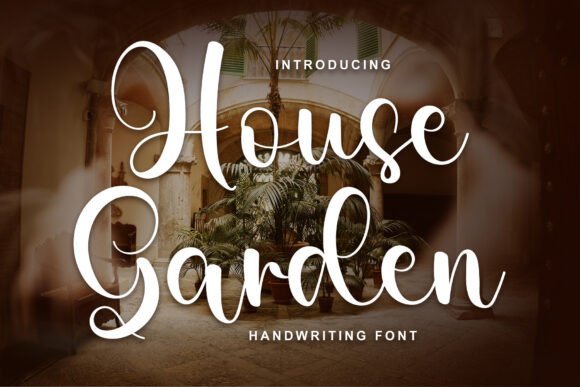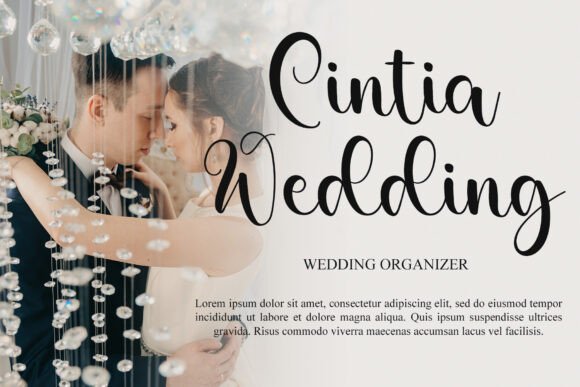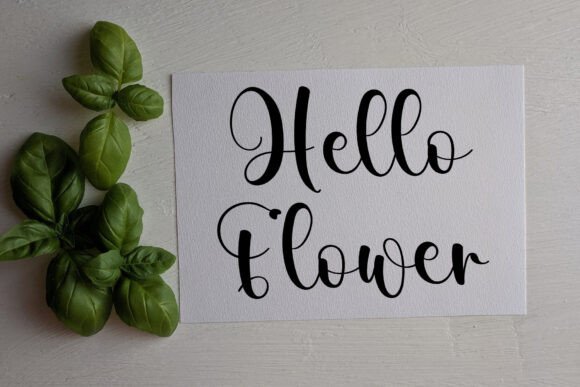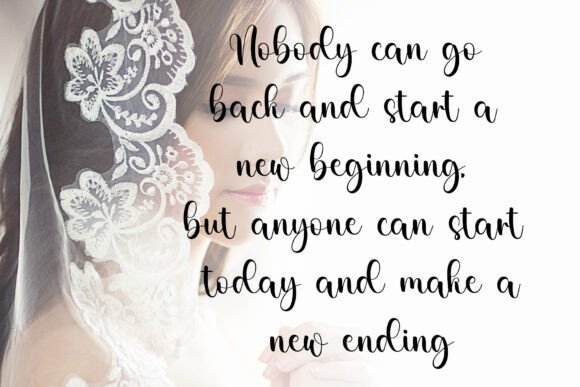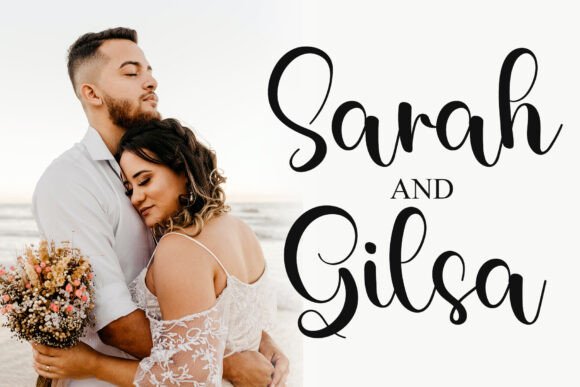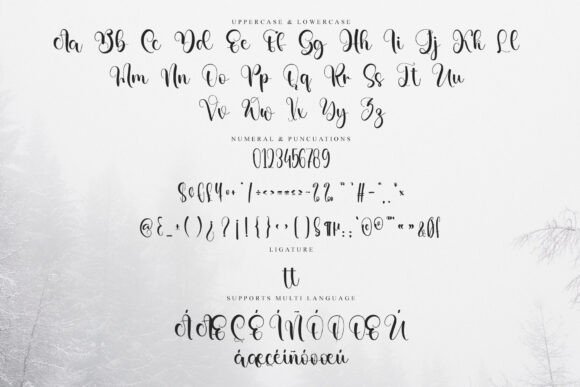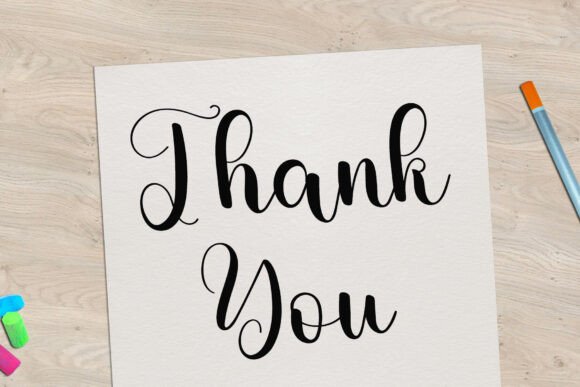
Discover the Timeless Elegance of House Garden Font
Have you ever sat down with a pen and paper, feeling the weight of your ideas floating around in your mind, waiting to be brought to life? That’s exactly where creativity happens – in those moments of quiet contemplation, where the world slows down and our imagination takes over. It’s in these moments that we find inspiration, and for designers, it’s the perfect time to explore new ways to express ourselves.
One such way to breathe life into your designs is with the House Garden Font, a stylish handwritten font that exudes a contemporary atmosphere and impeccable form. Inspired by timeless classic calligraphy, this font is designed to add a touch of sophistication to your projects. Whether you’re working on a branding project, a wedding invitation, or a social media campaign, the House Garden Font is sure to elevate your work and leave a lasting impression.
For designers, the House Garden Font is a valuable asset that can help you create unique and memorable designs. Its balanced and varied strokes make it perfect for a wide range of applications, from headers and titles to body text and quotes. With the House Garden Font, you can add a touch of elegance and sophistication to your work, setting yourself apart from the rest and making your designs truly unforgettable.
Key Features of House Garden Font
- Font Family: House Garden Font offers a unique and elegant script font family, ideal for various design applications.
- Character Count: The font family consists of approximately 400 glyphs, including uppercase and lowercase letters, numerals, and special characters.
- Unique Characteristics: House Garden Font features a beautiful, hand-painted style with subtle texture and imperfections, giving it a unique and organic feel.
House Garden Font Review
Overall, I’d say the House Garden Font is a lovely addition to any design project. Here’s what I think:
- Unique, hand-drawn feel that adds a personal touch to designs
- Perfect for creating a whimsical, garden-inspired atmosphere
- Works well in a variety of contexts, from invitations to blog headers
- Has a decent range of weights and styles to suit different design needs
- Lack of consistency in letter spacing and form in certain weights
- May not be ideal for body text due to the decorative nature of the font
- Some characters may not be available in certain weights, which can limit design options
Overall, the House Garden Font is a great choice for designers looking to add a touch of personality to their work. While it may have some limitations, its unique charm and versatility make it a valuable addition to any design library.
House Garden Font pairs well with vintage or distressed textures, adding to its charm.
House Garden Font is perfect for creating invitations, posters, and other decorative text elements.
House Garden Font is ideal for:
- Creating a vintage or rustic aesthetic.
- Designing invitations, posters, and other decorative text elements.
- Adding a personal touch to your branding and marketing materials.
Remember to experiment with different font sizes, colors, and combinations to get the most out of House Garden Font.